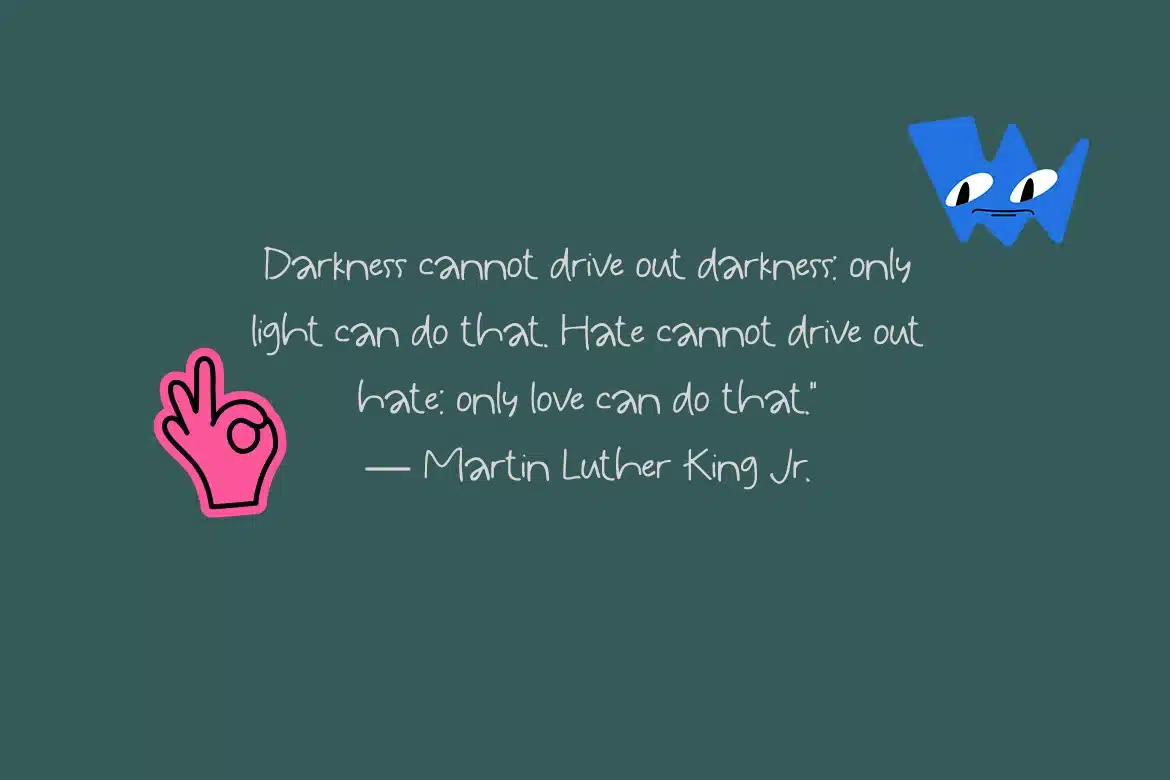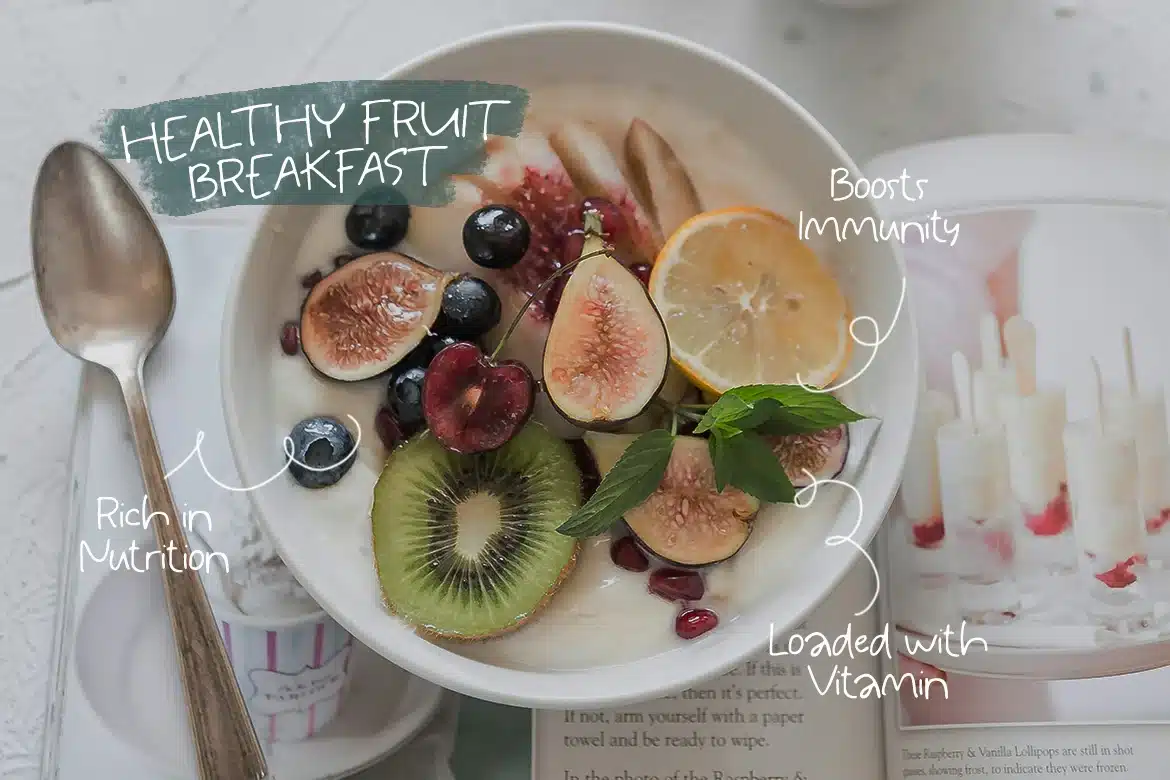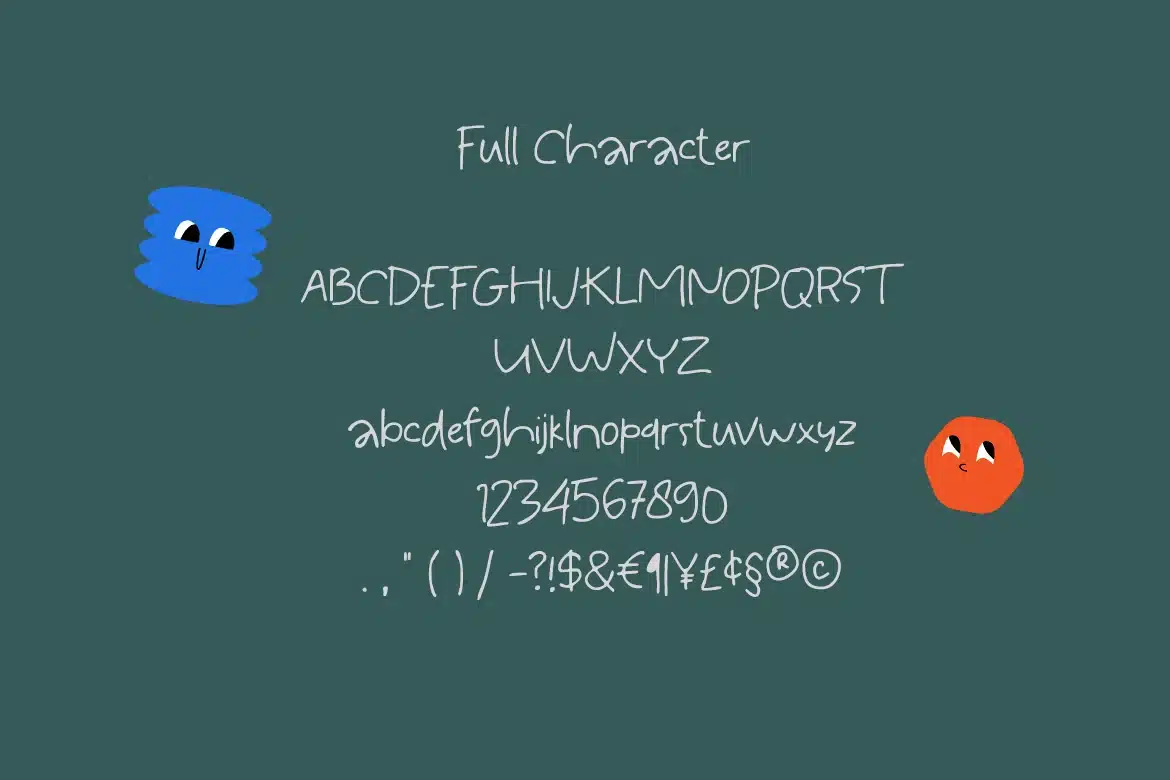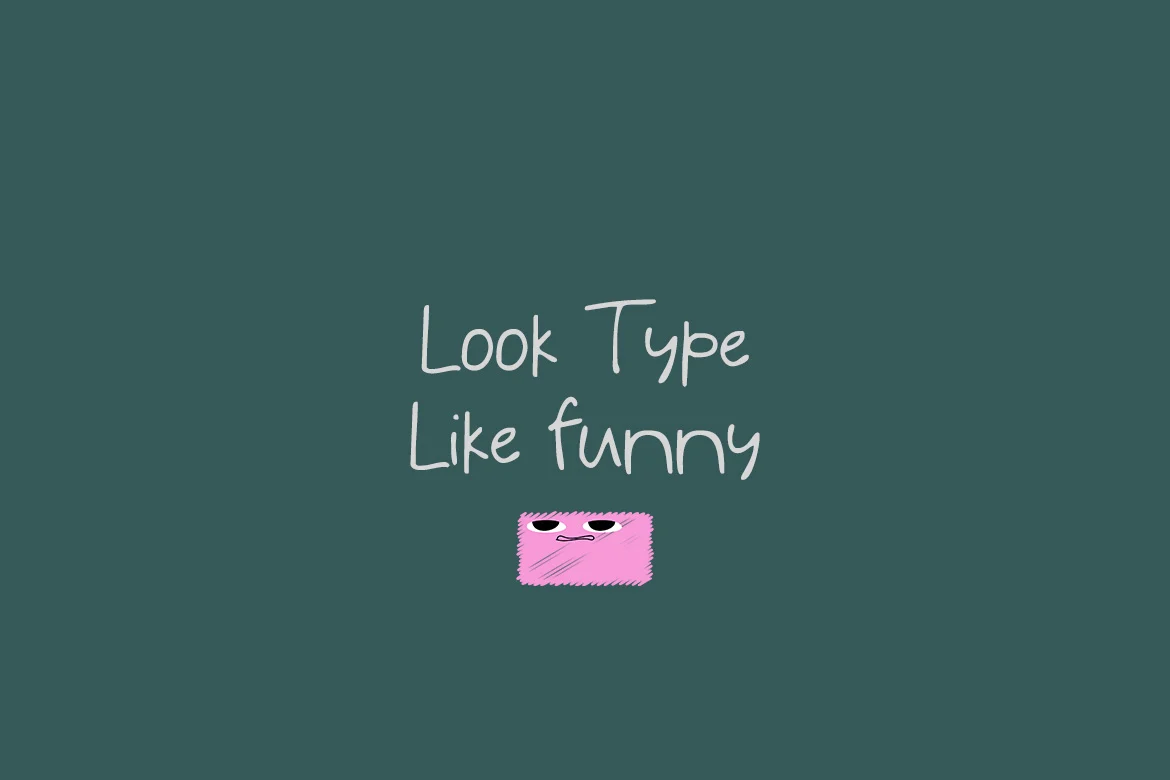
The Kyra Silvani Font
The Kyra Silvani is a playful handwritten typeface crafted with a personal, designer‑to‑designer touch. Its casual strokes and organic flow give it a warm, approachable personality, evoking authenticity and creativity. The font’s handcrafted charm makes it ideal for personal branding, social media graphics, invitations, friendly, and made with love